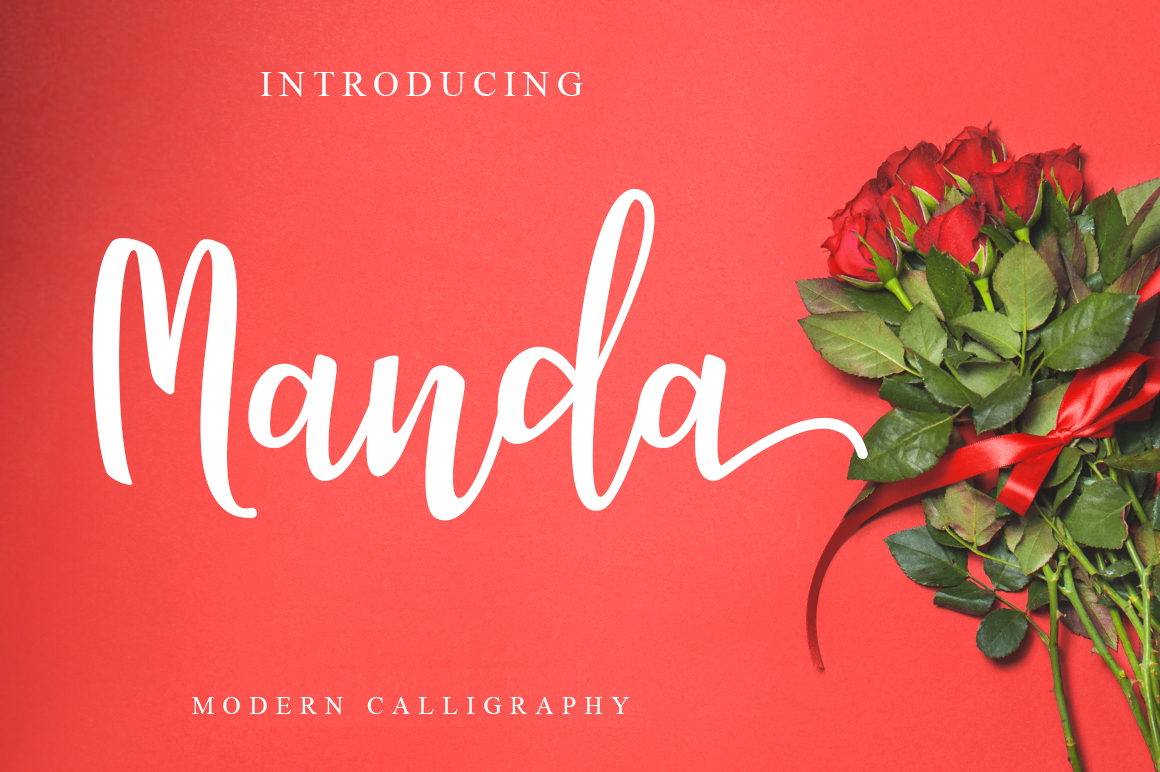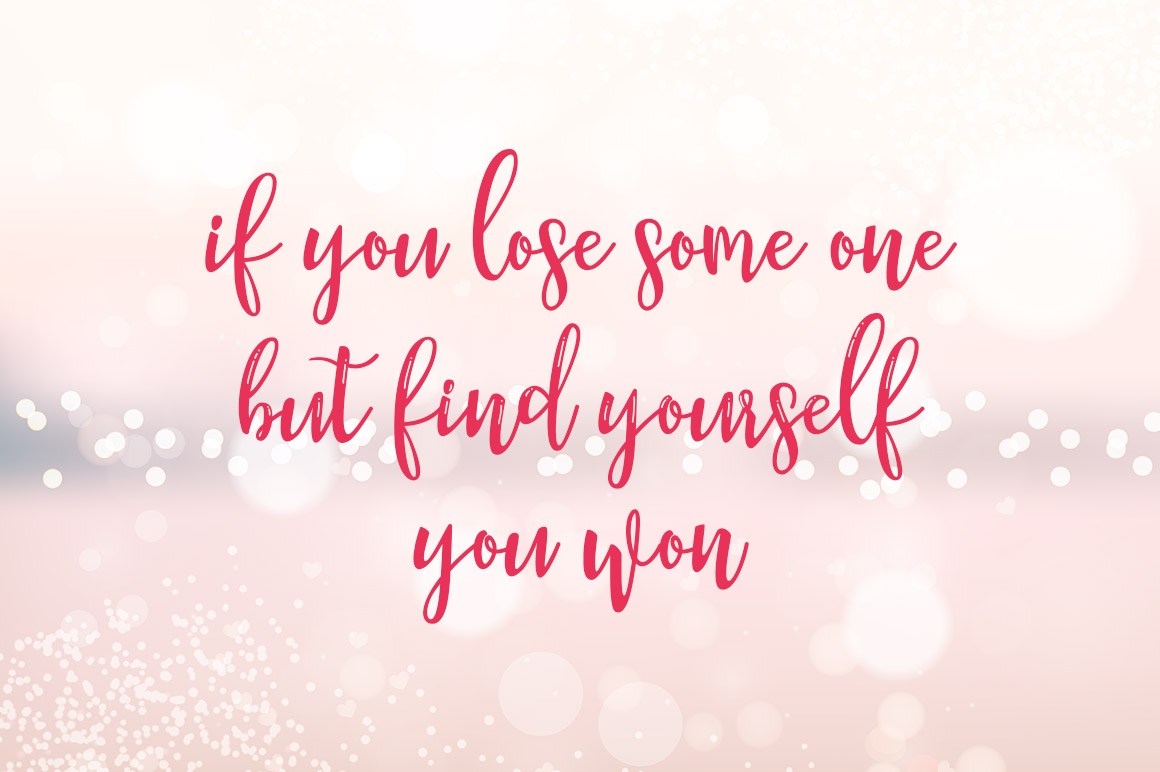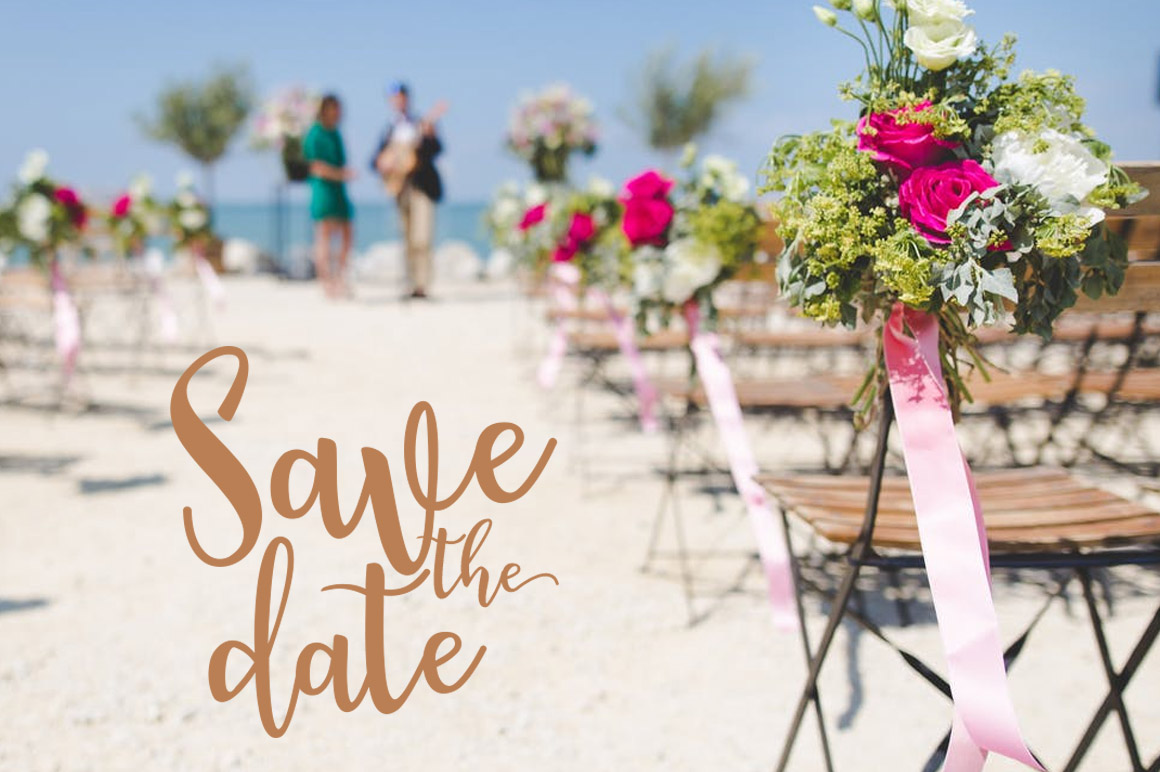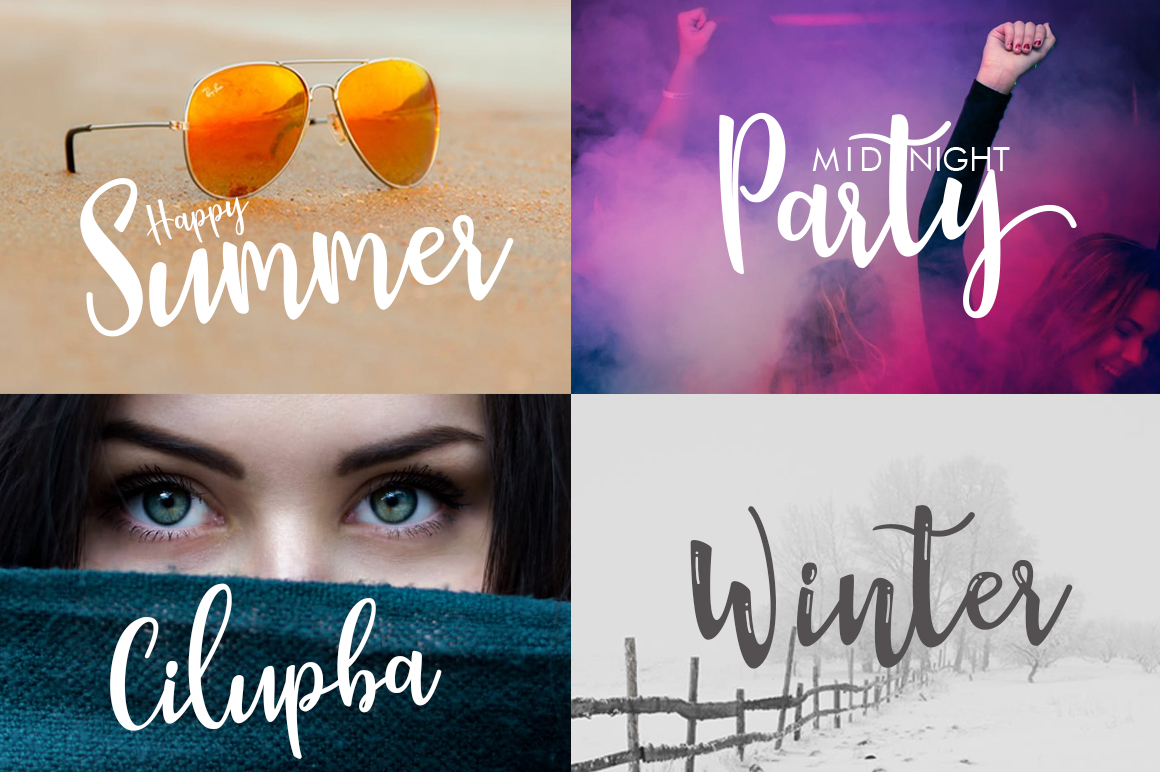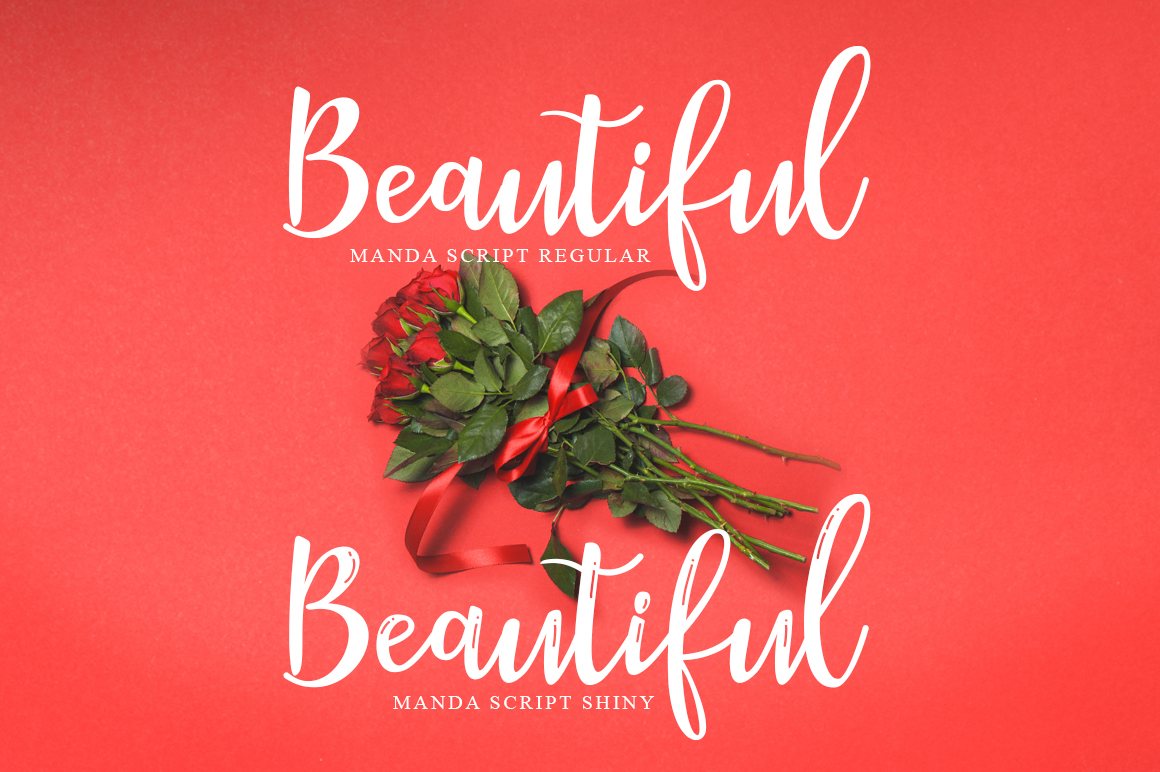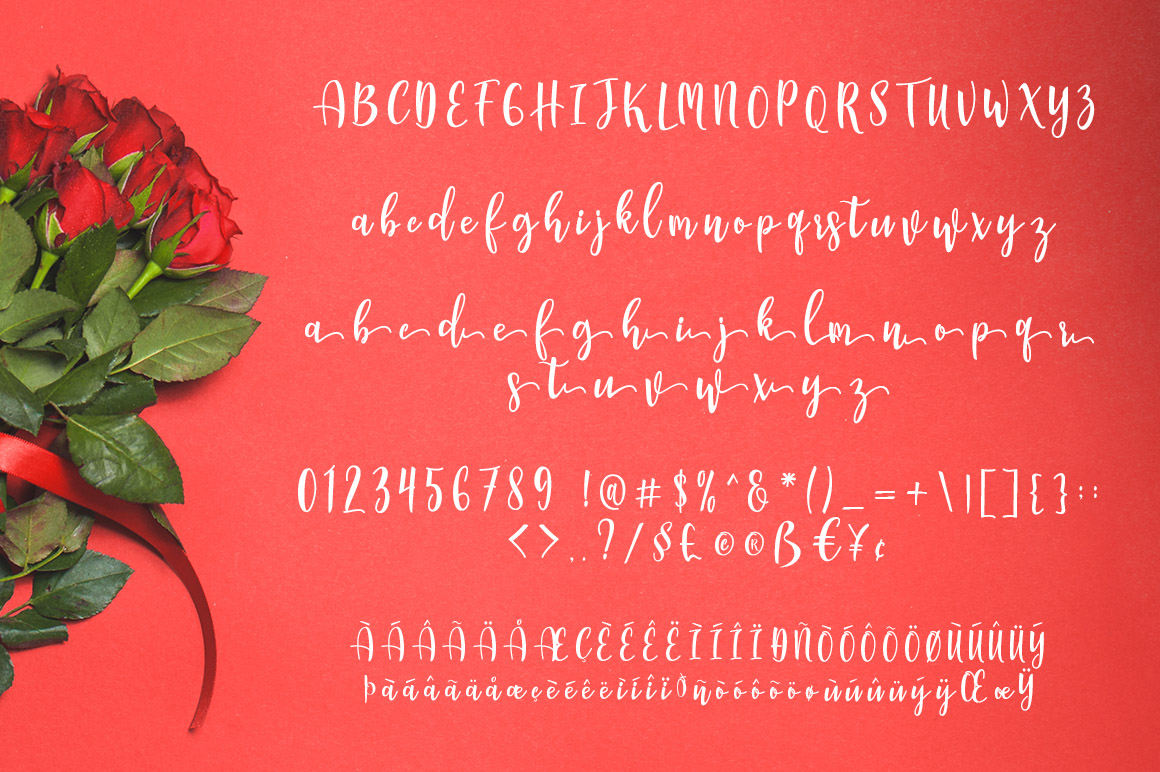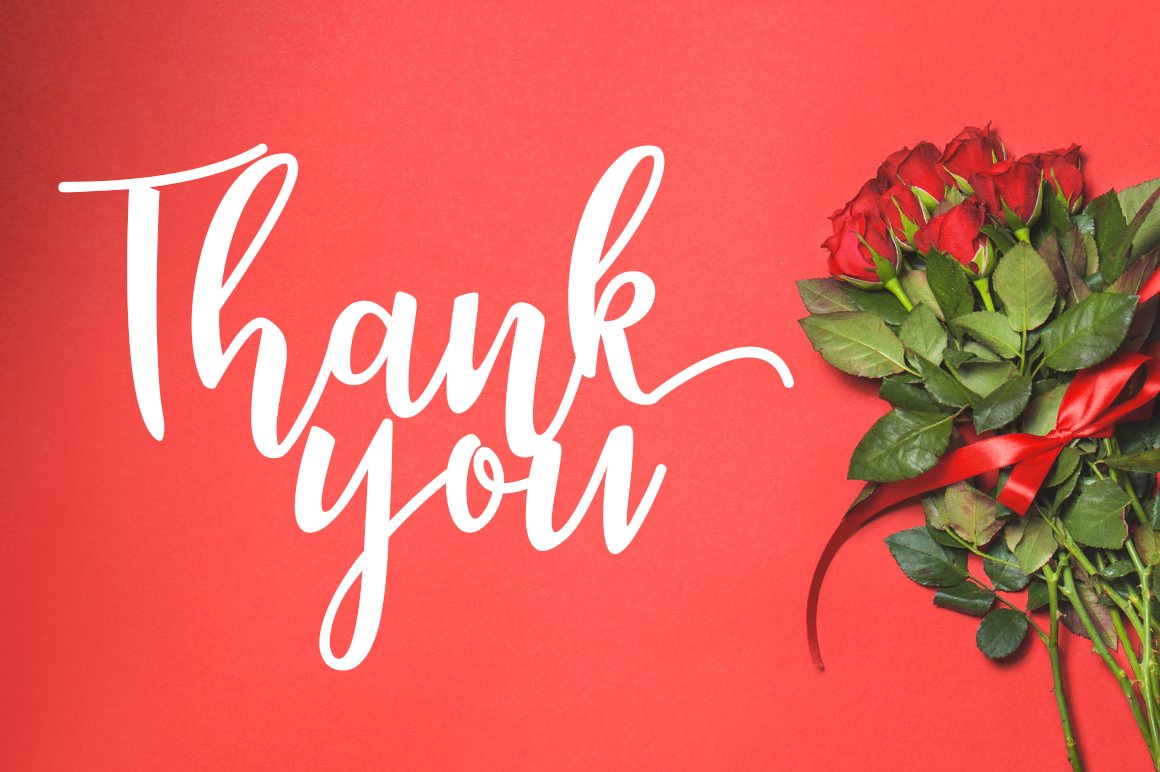
Manda Script Font
About Manda Script Font
Manda Script is a beautiful fresh, modern handmade font.
Manda comes in 2 different versions: Manda Script & Manda Script Shiny